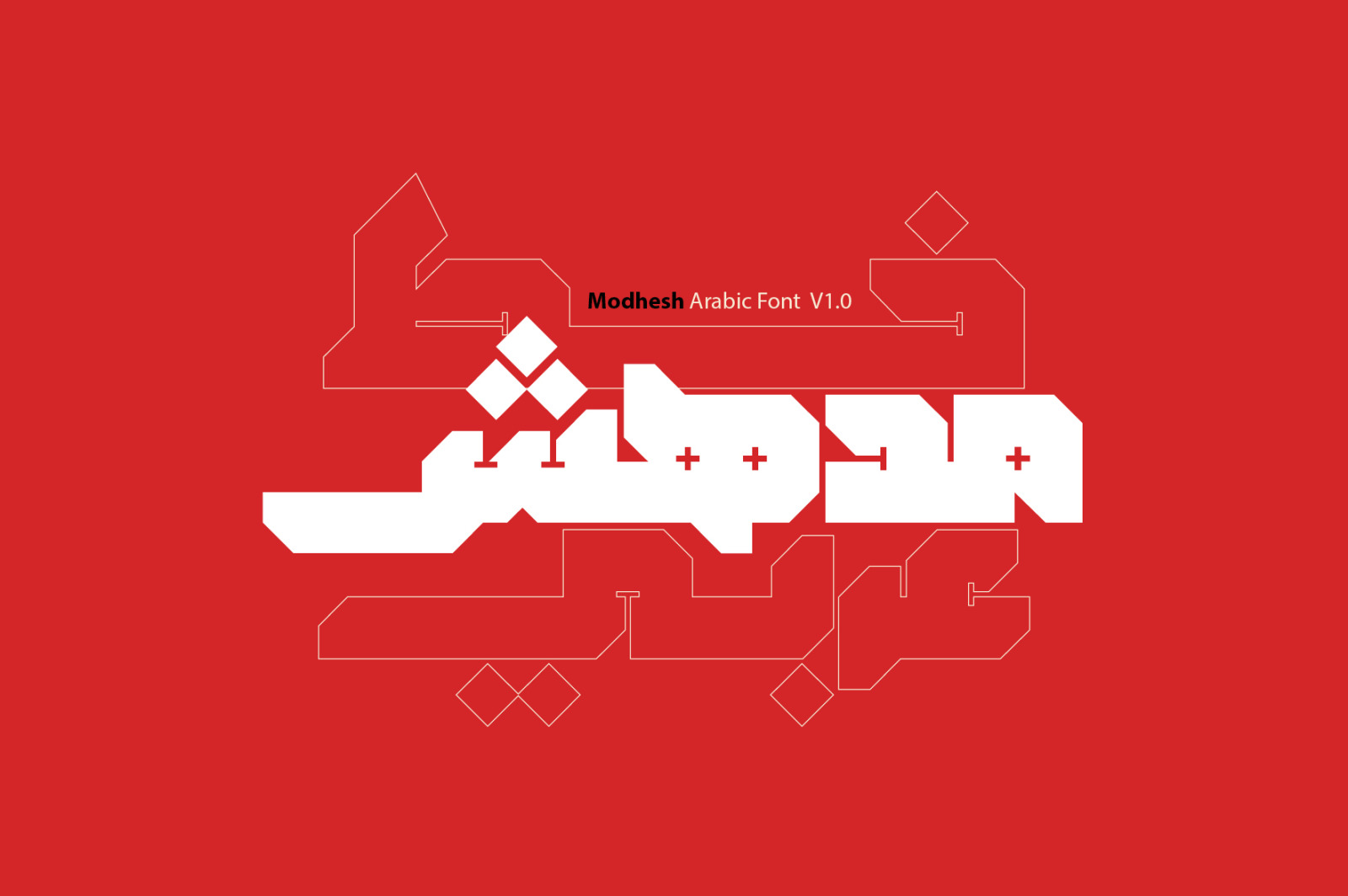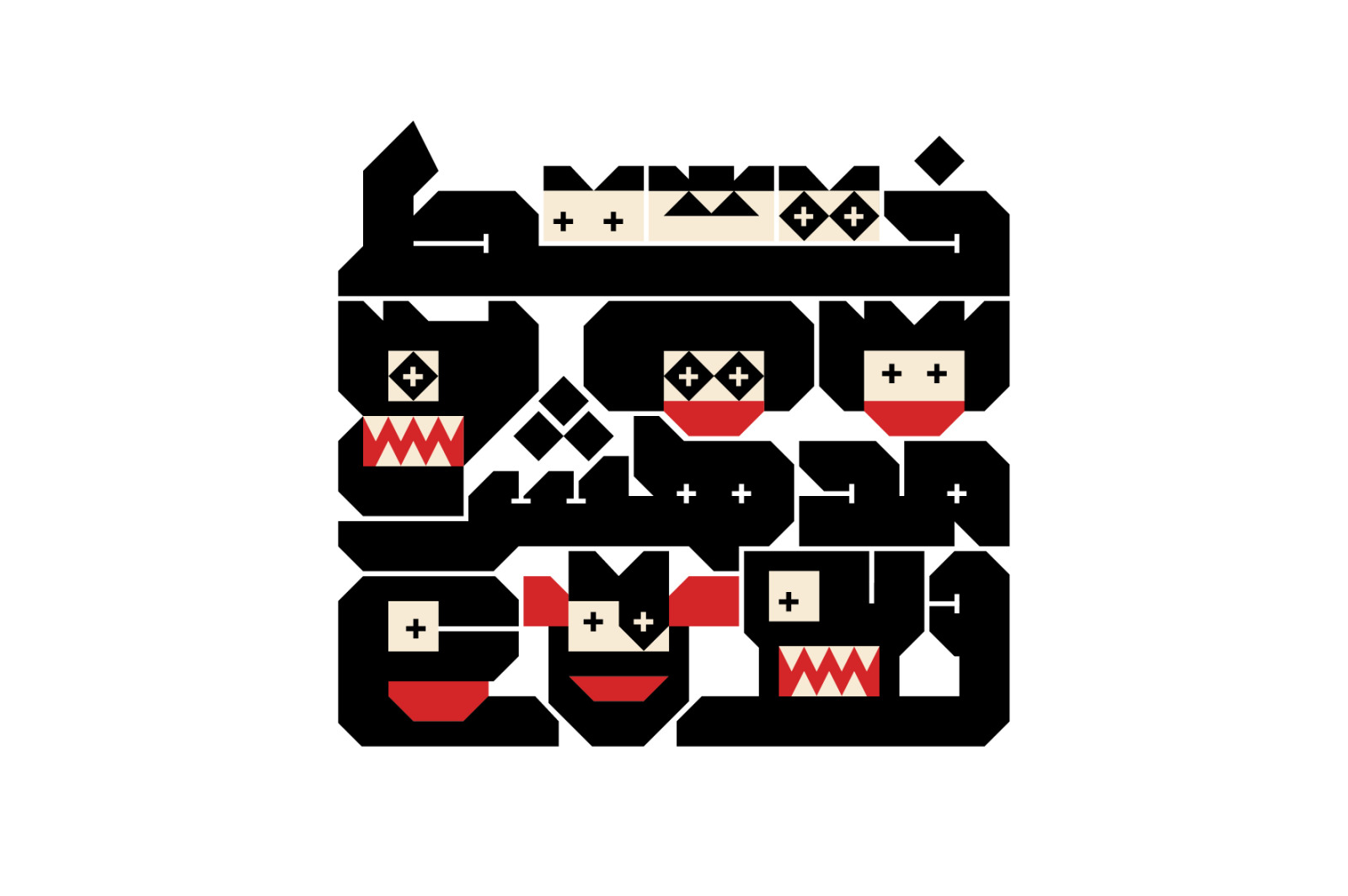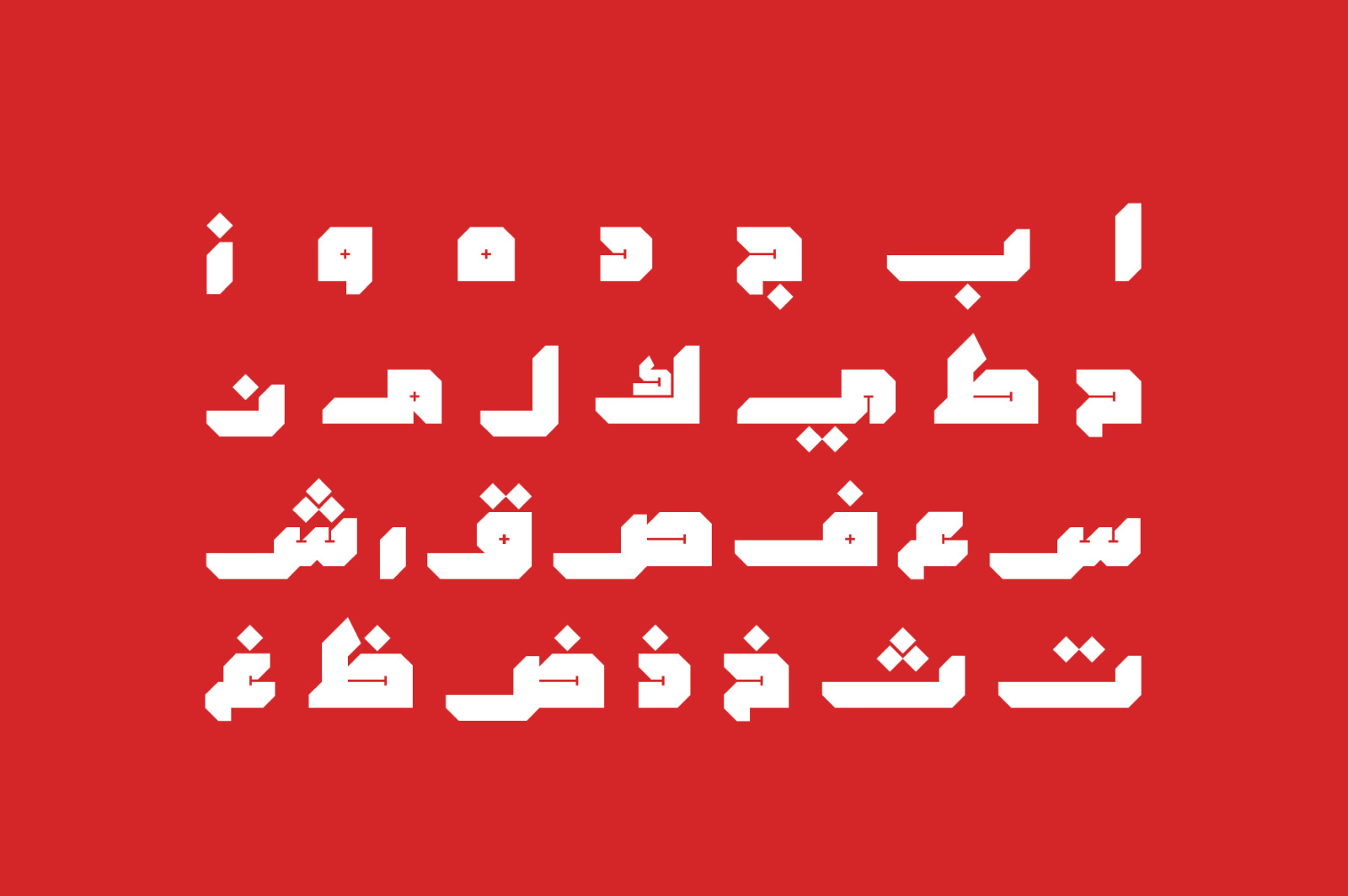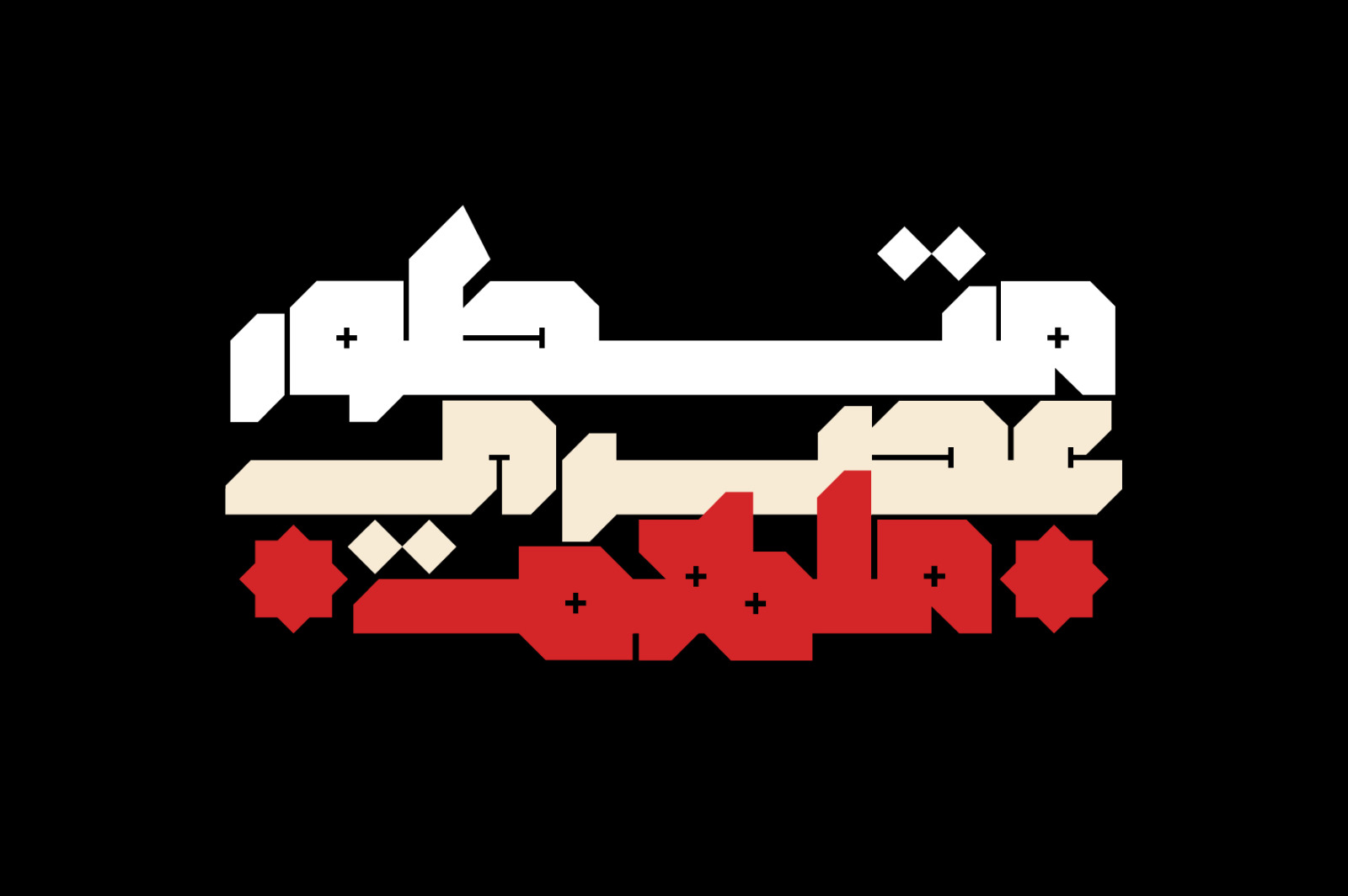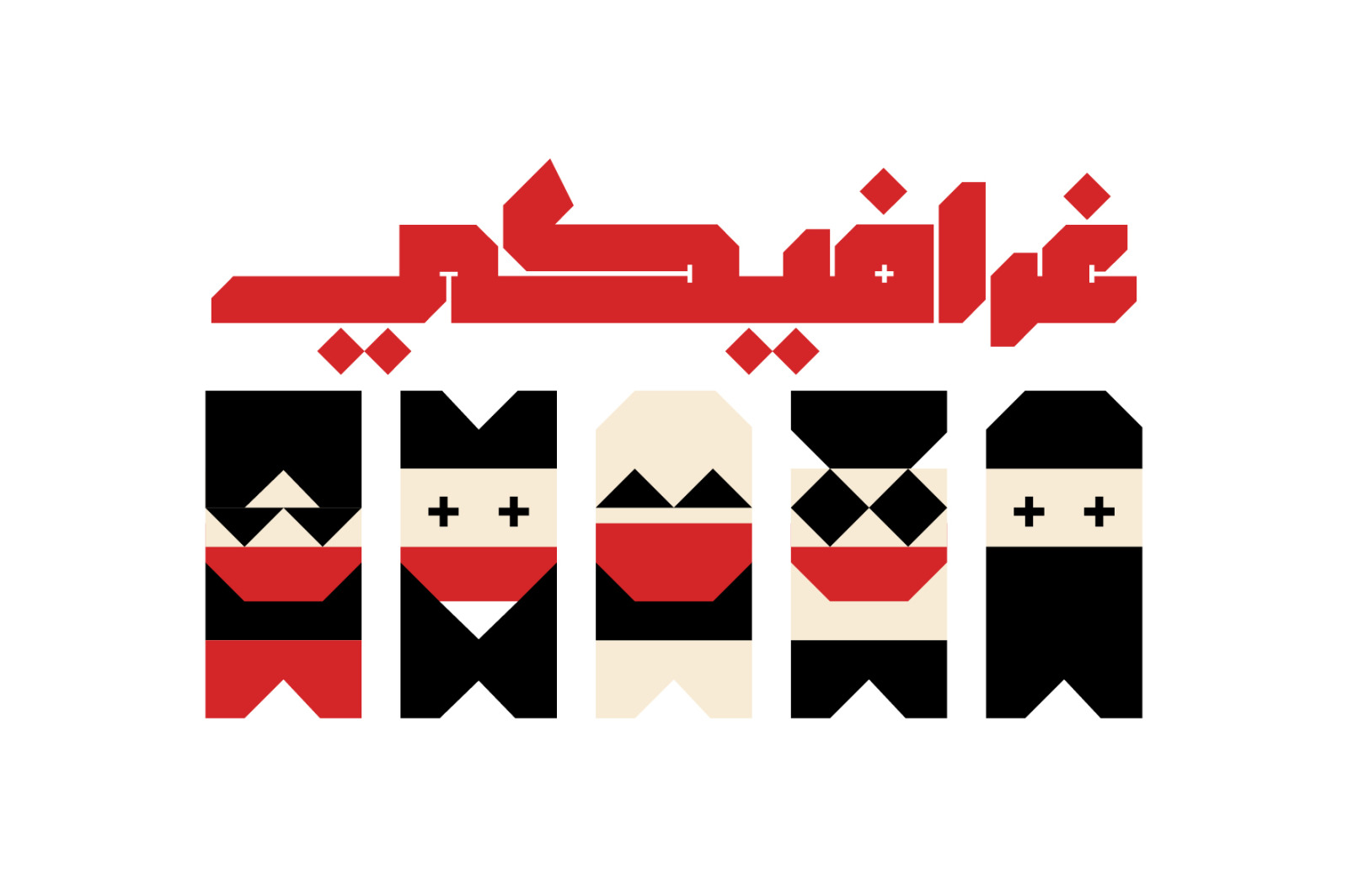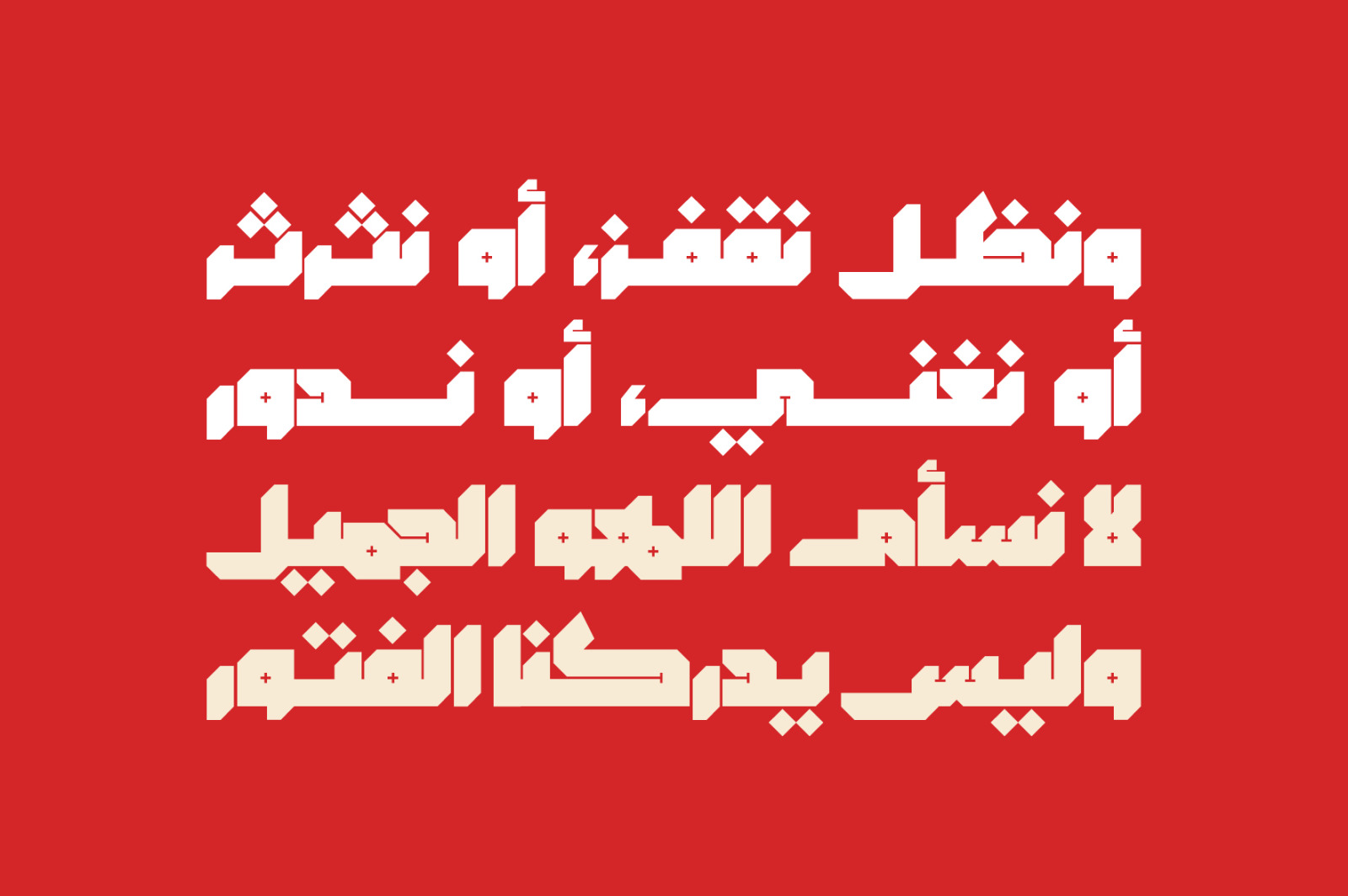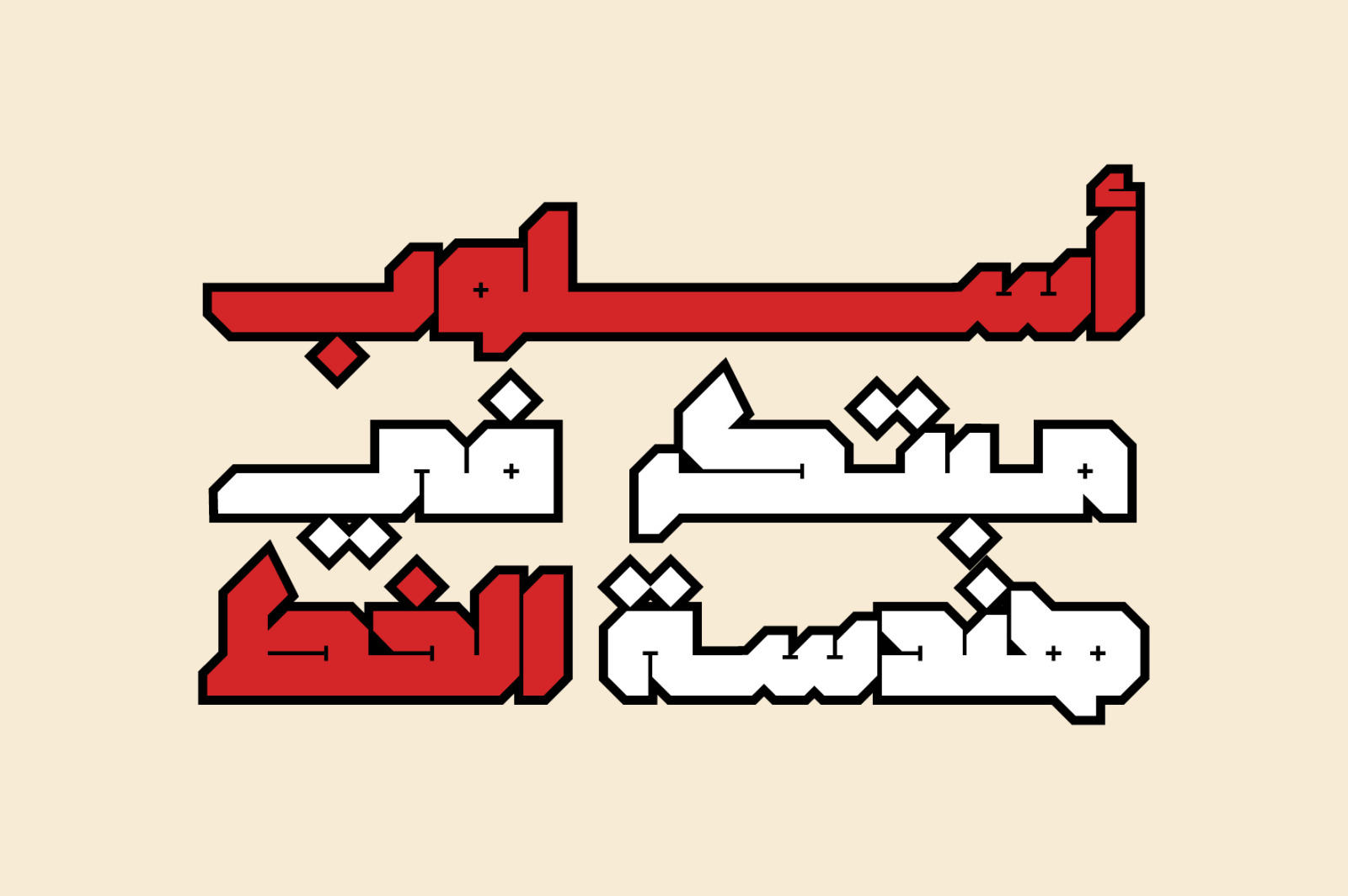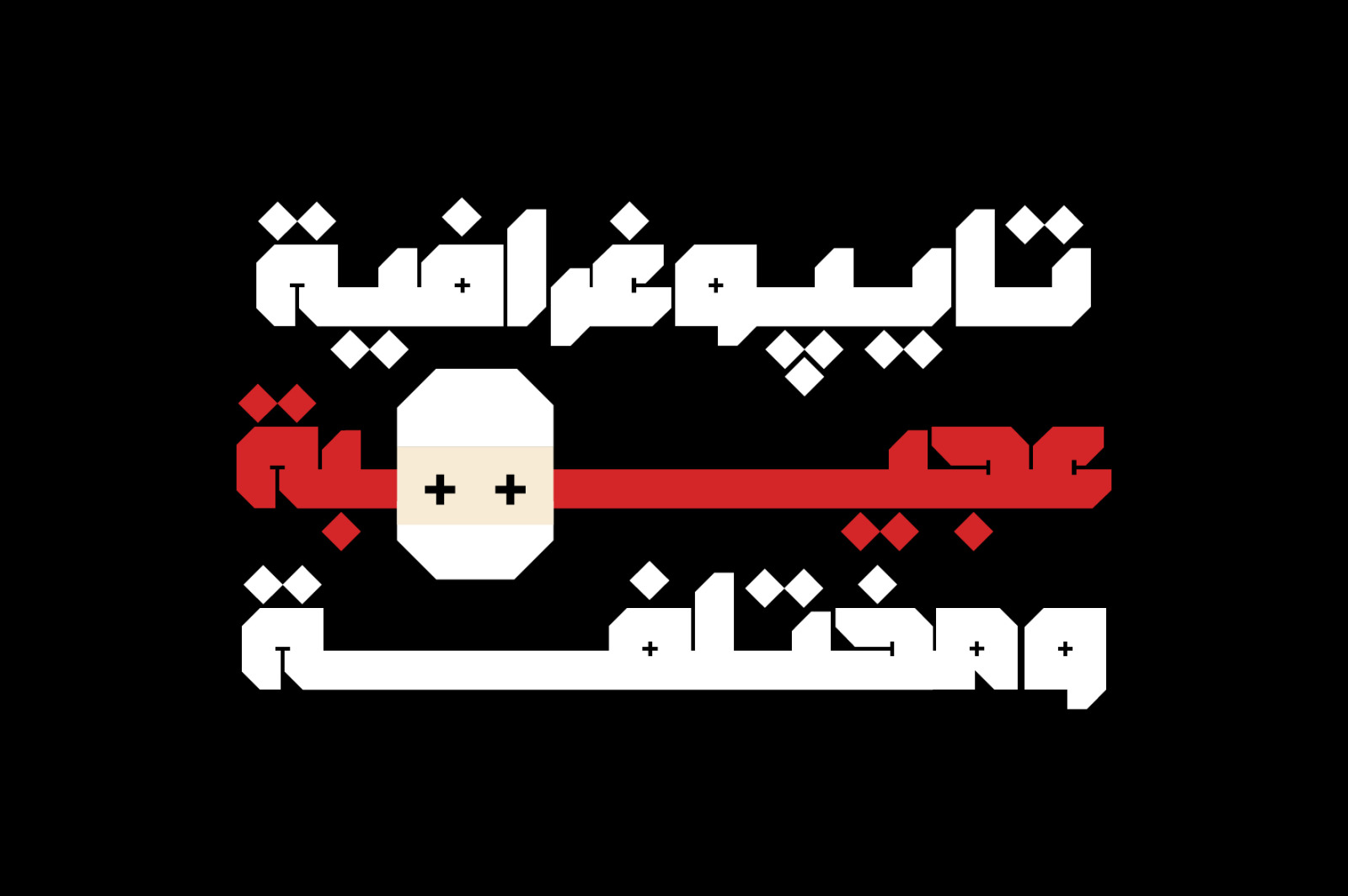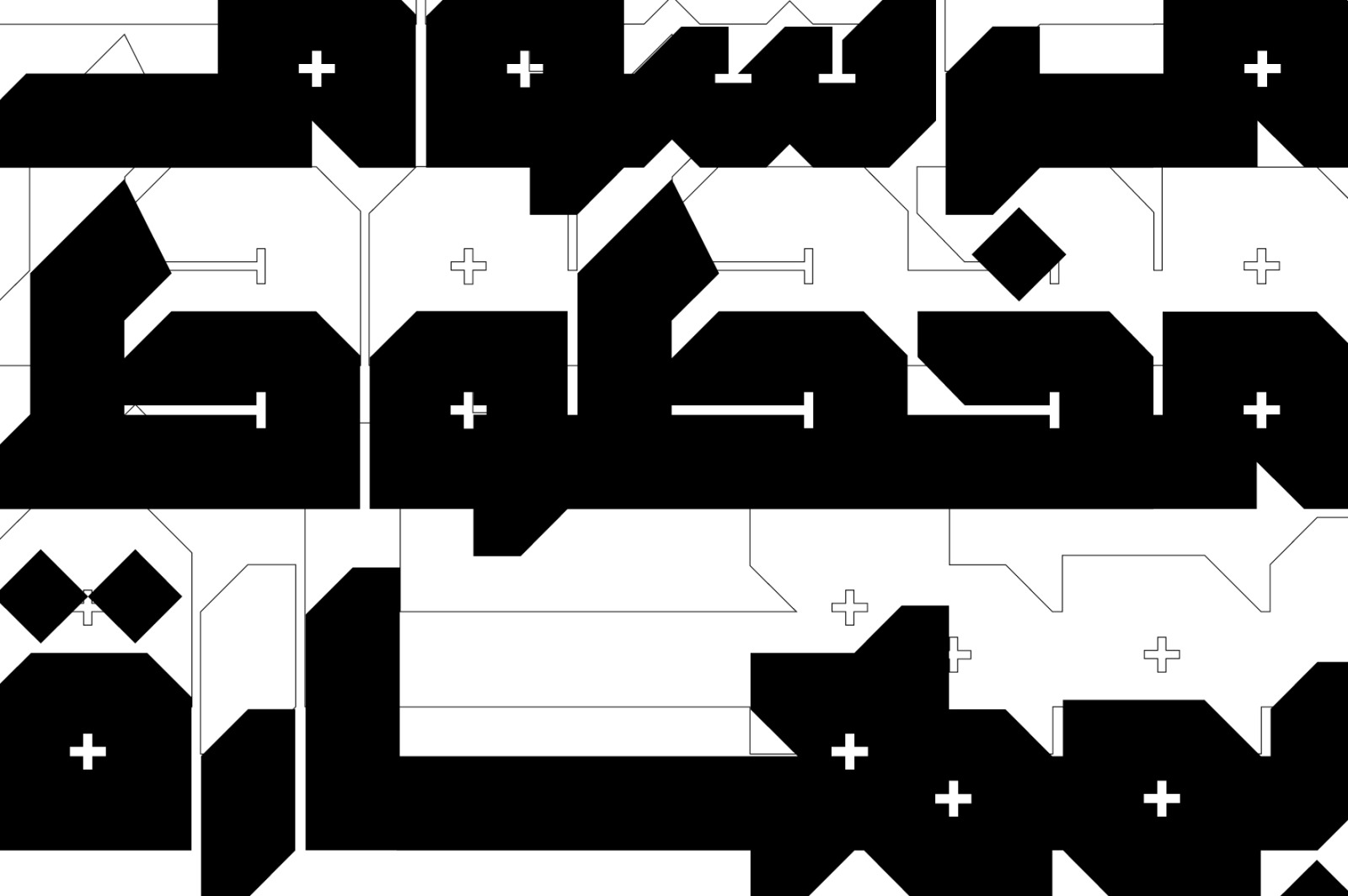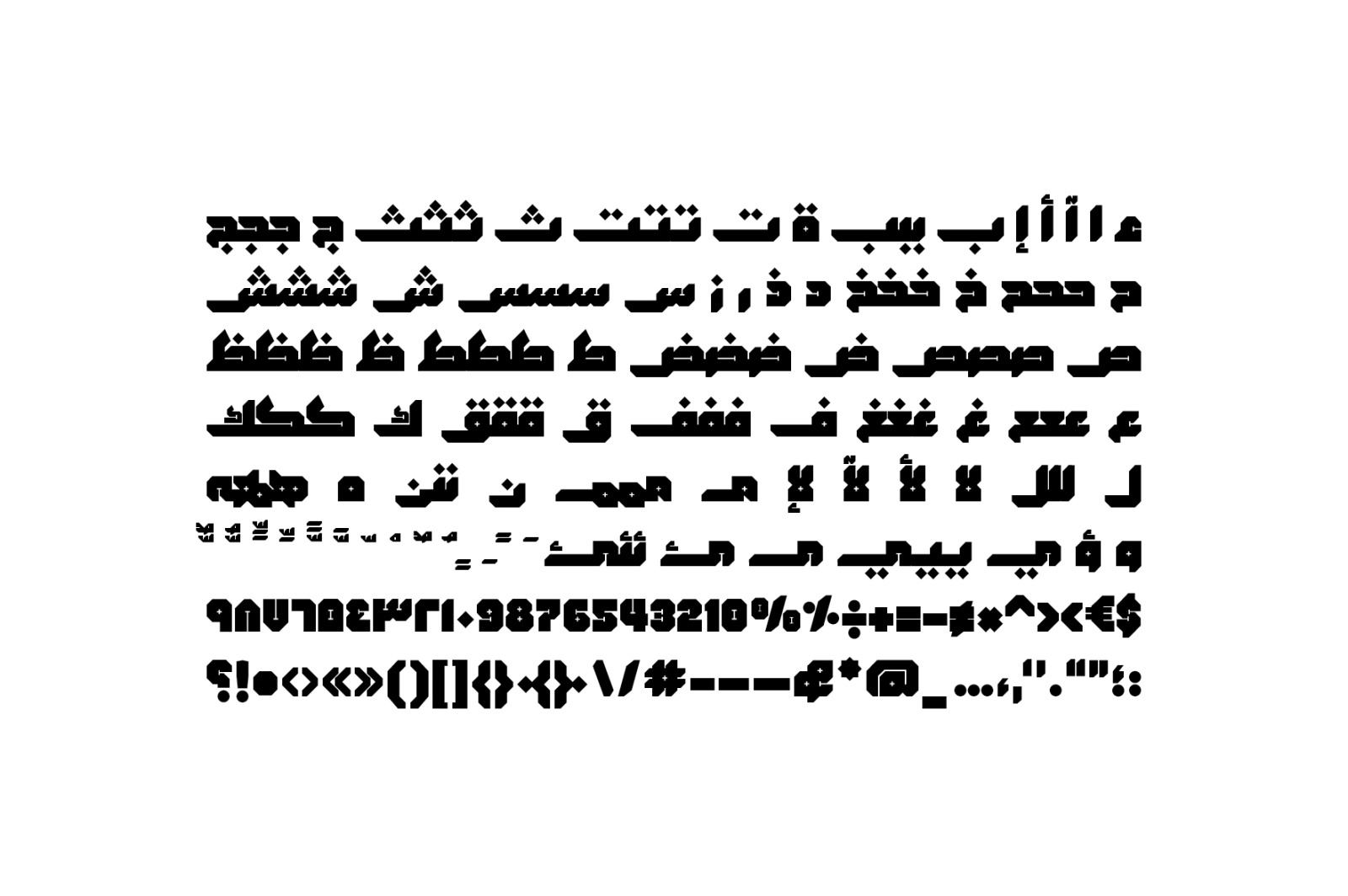
Modhesh - Arabic Font
Modhesh (the Arabic word for 'Astonishing') is an Arabic display font that features an eccentric letterform style with a very heavy weight. It is designed specifically to be used at large sizes for creative headings, rather than for extended passages of body text. Due to its sharp typographic style, Modhesh is suitable for modern designs as it blends harmoniously with geometric illustrations. The font works with web design, print and mobile applications.